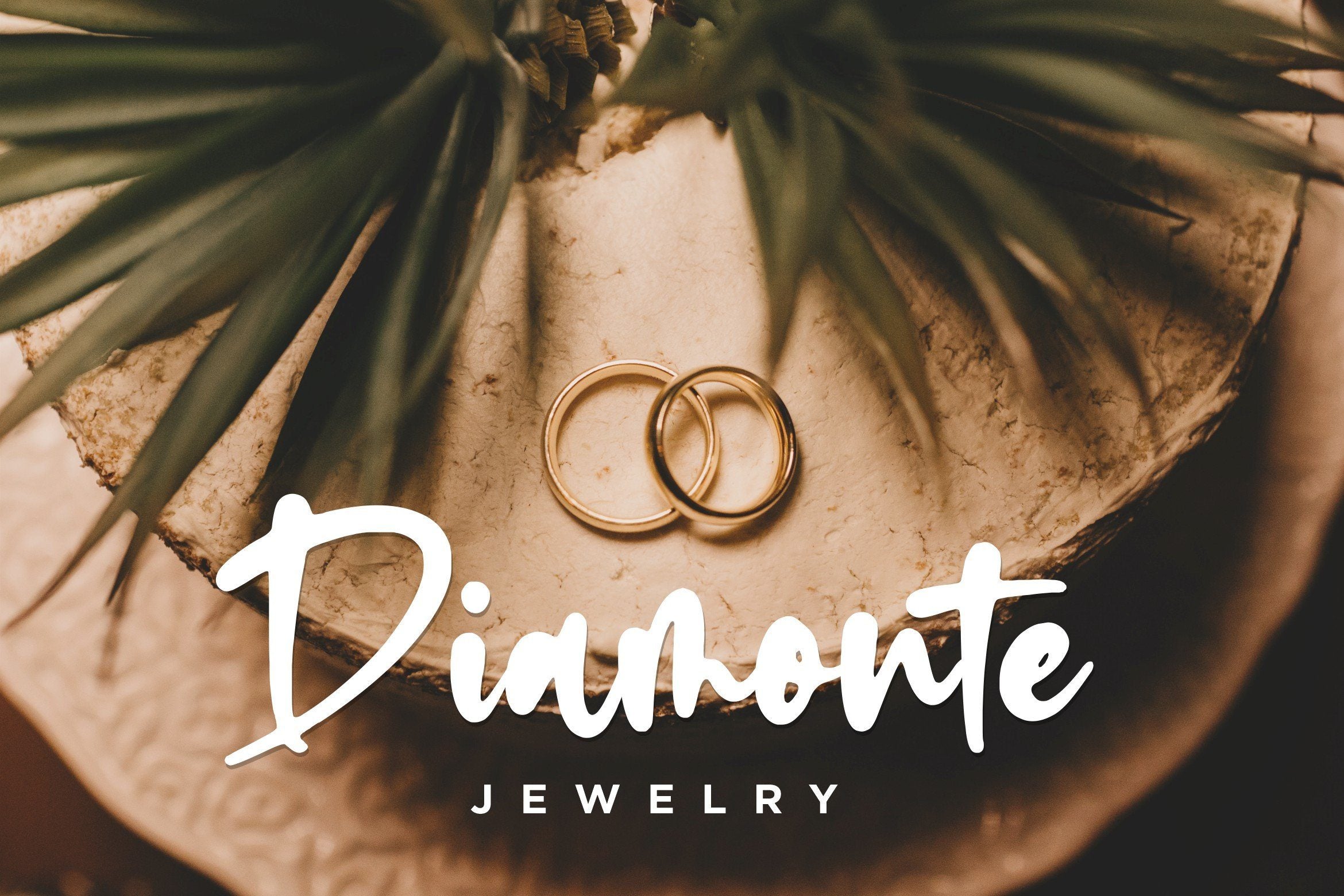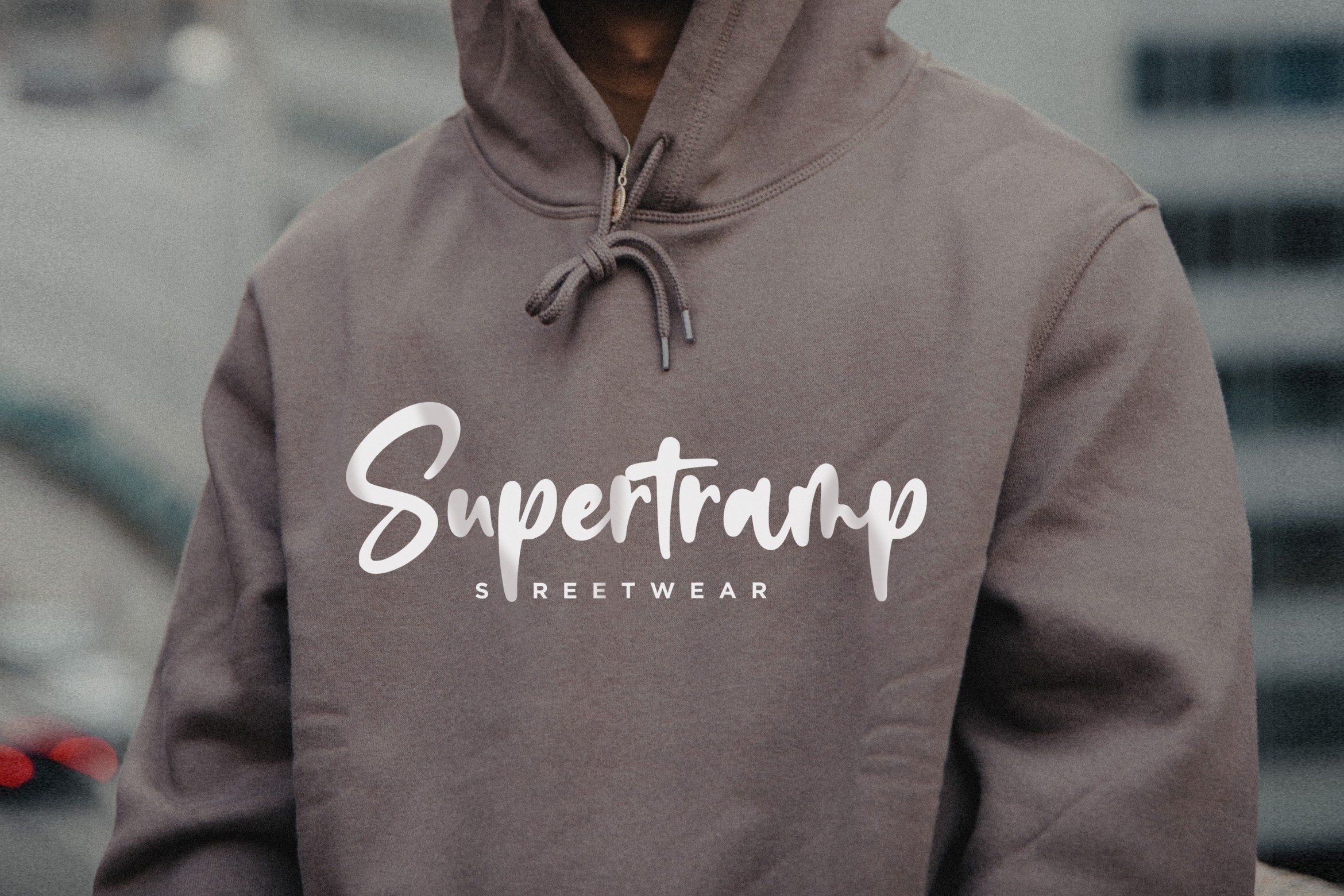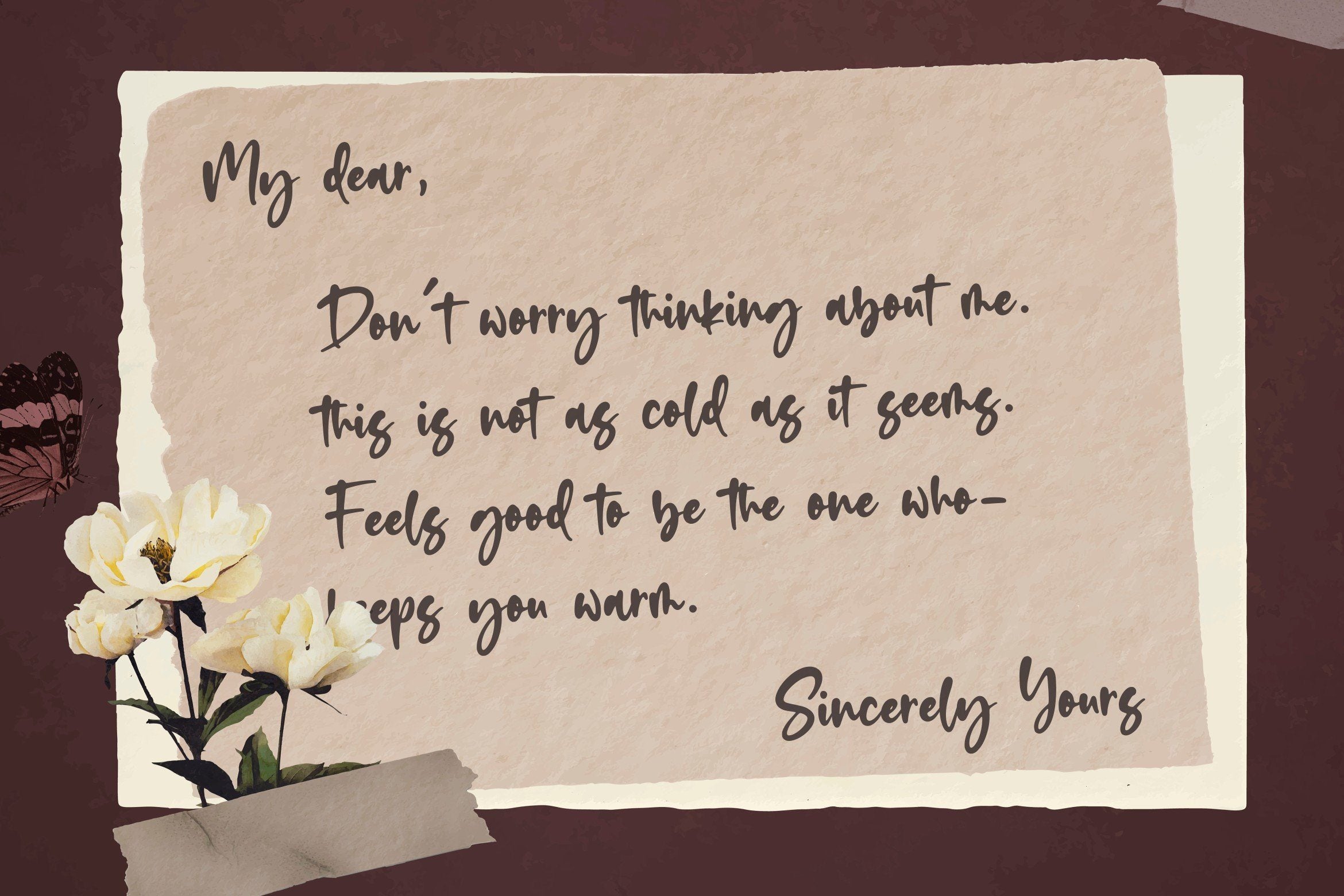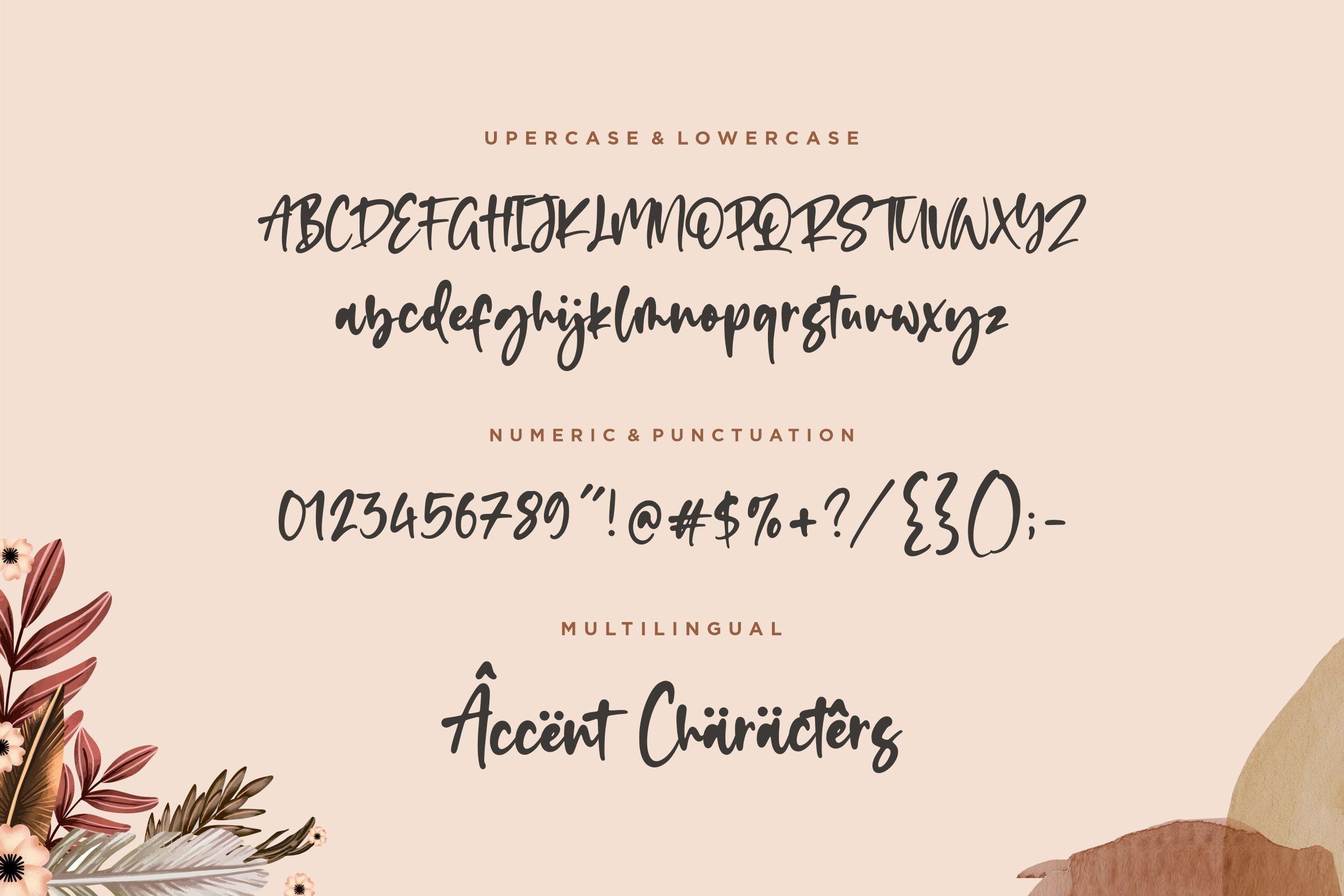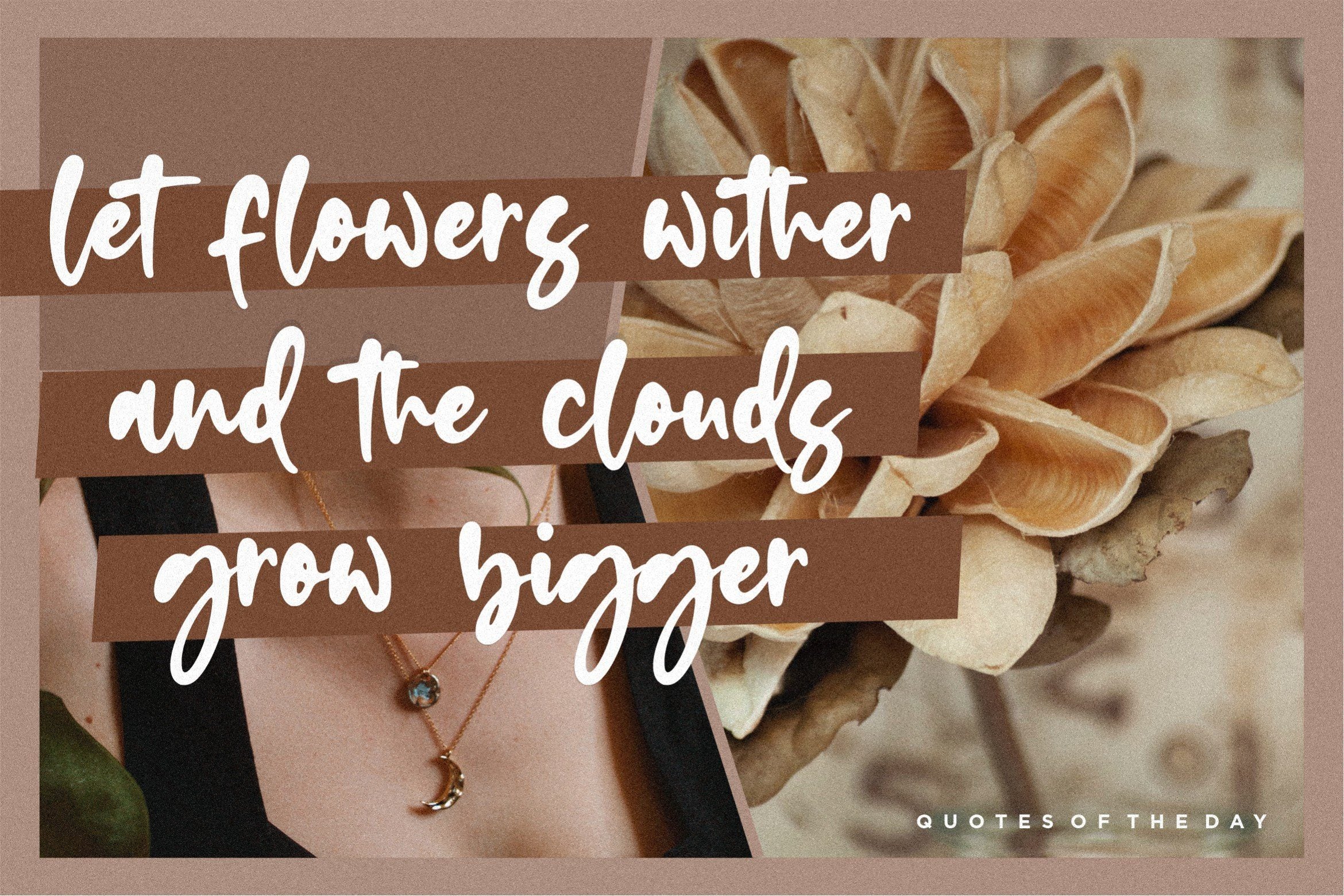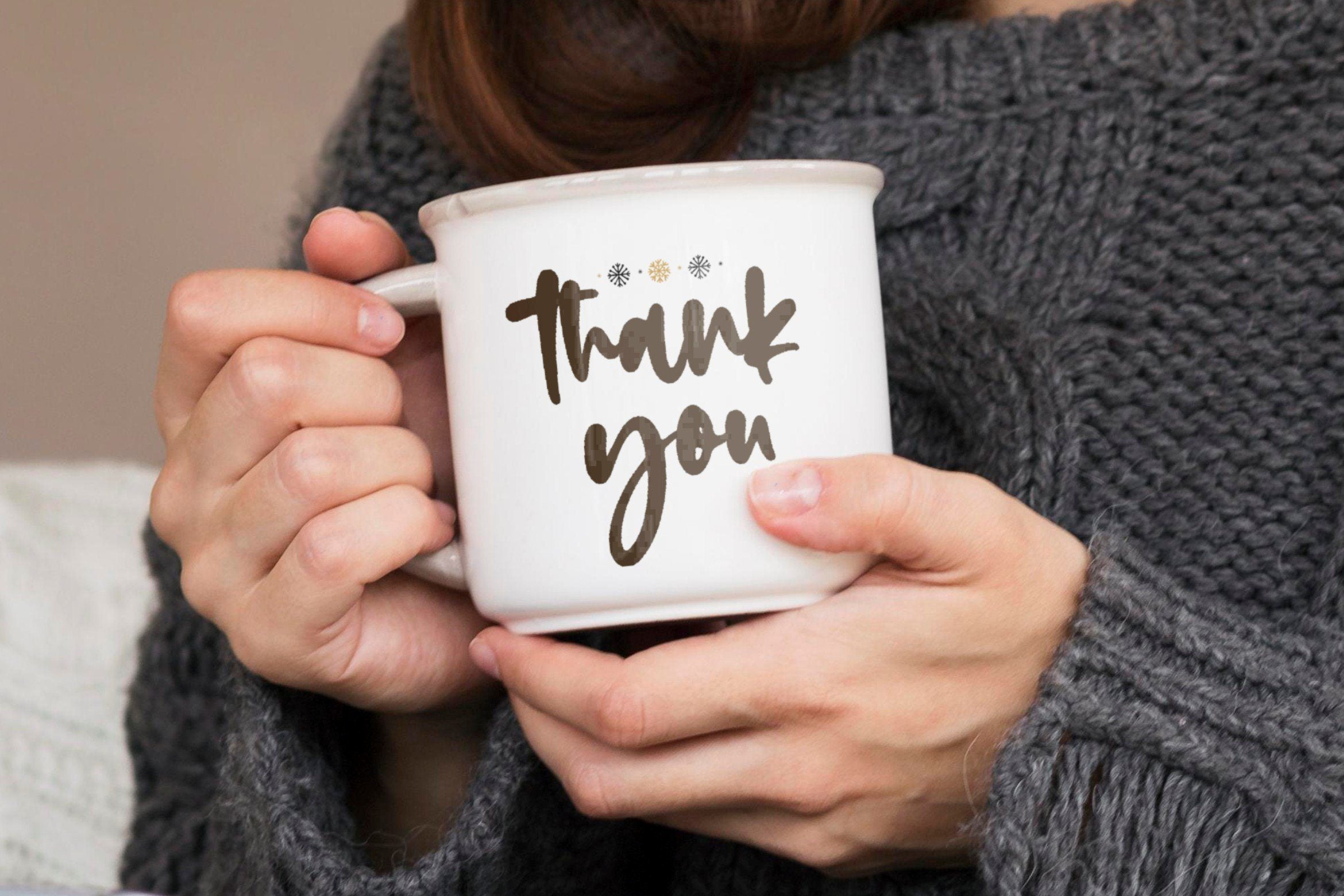
Romalian Modern Calligraphy Font
About Romalian Modern Calligraphy Font
Introducing by Balpirick Studio. Proudly Present, Romalian Font. Romalian is a Modern Calligraphy Font. Romalian is a magical script font carefully created with a touch of elegance. Whether you’re looking for fonts for Instagram or calligraphy scripts for DIY projects, this font will turn any creative idea into a true piece of art! This font includes TTF, OTF and WOFF, Romalian also multilingual support. Enjoy the font, feel free to comment or feedback, send me PM or email. Thank you!